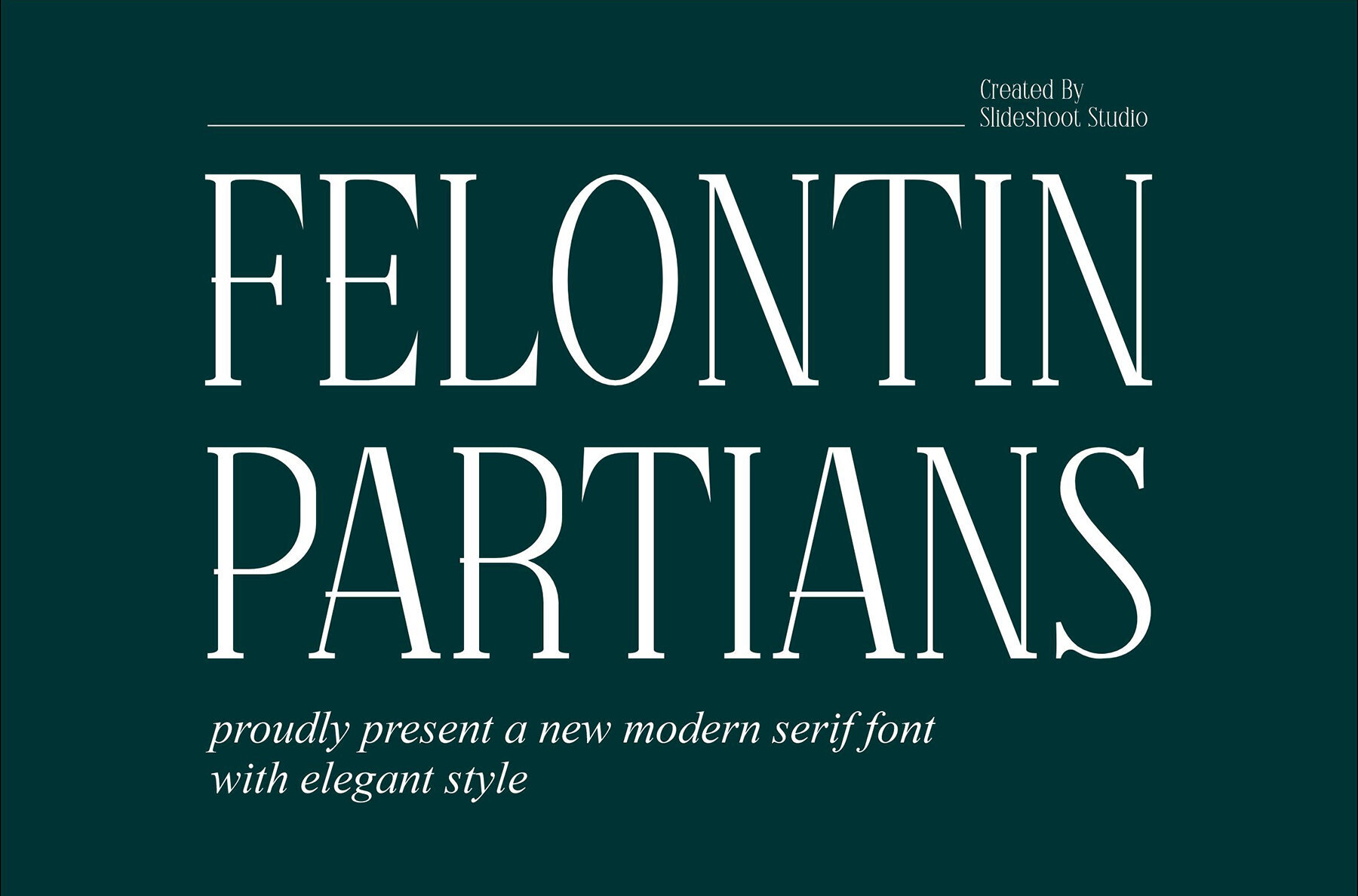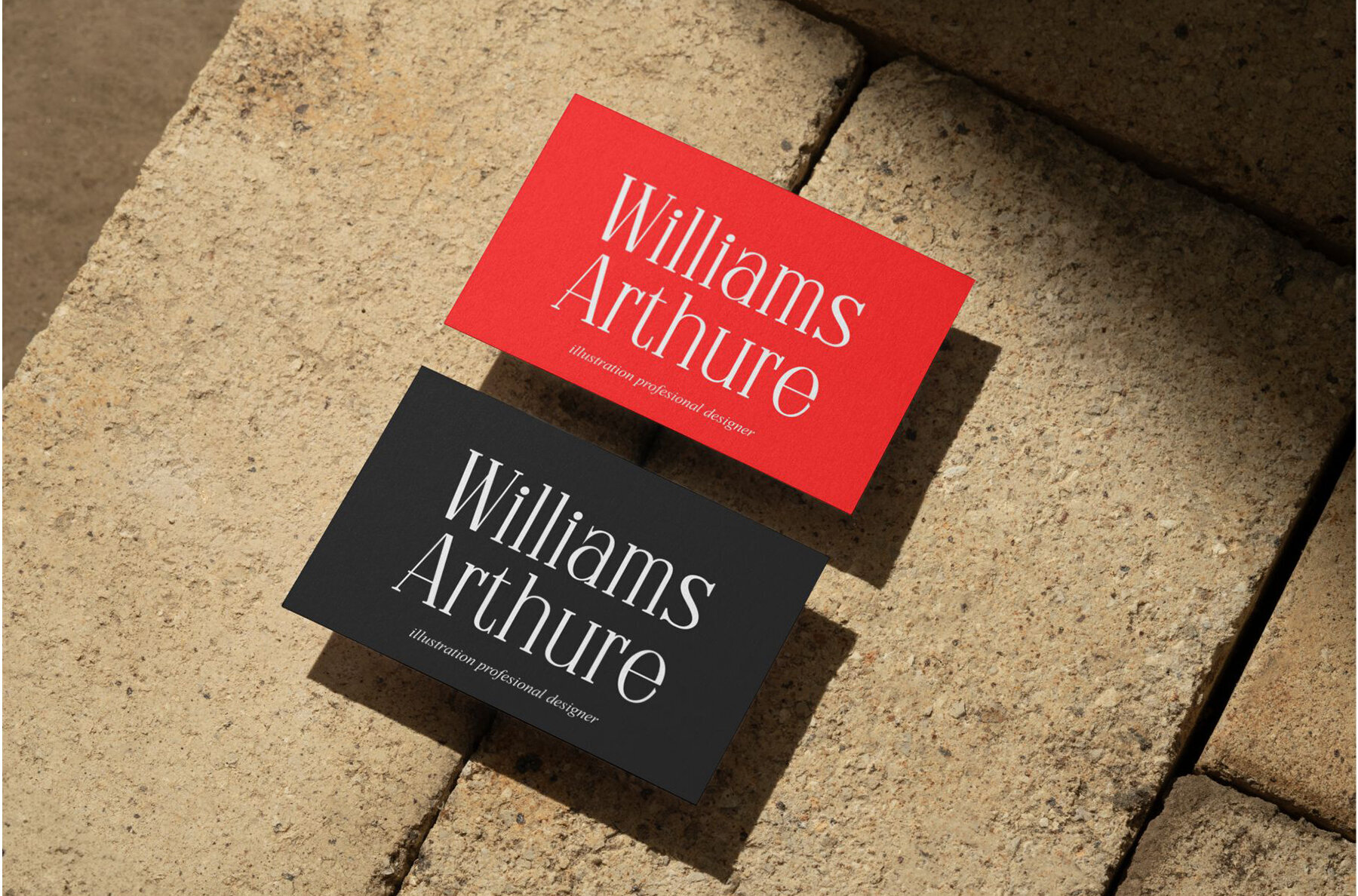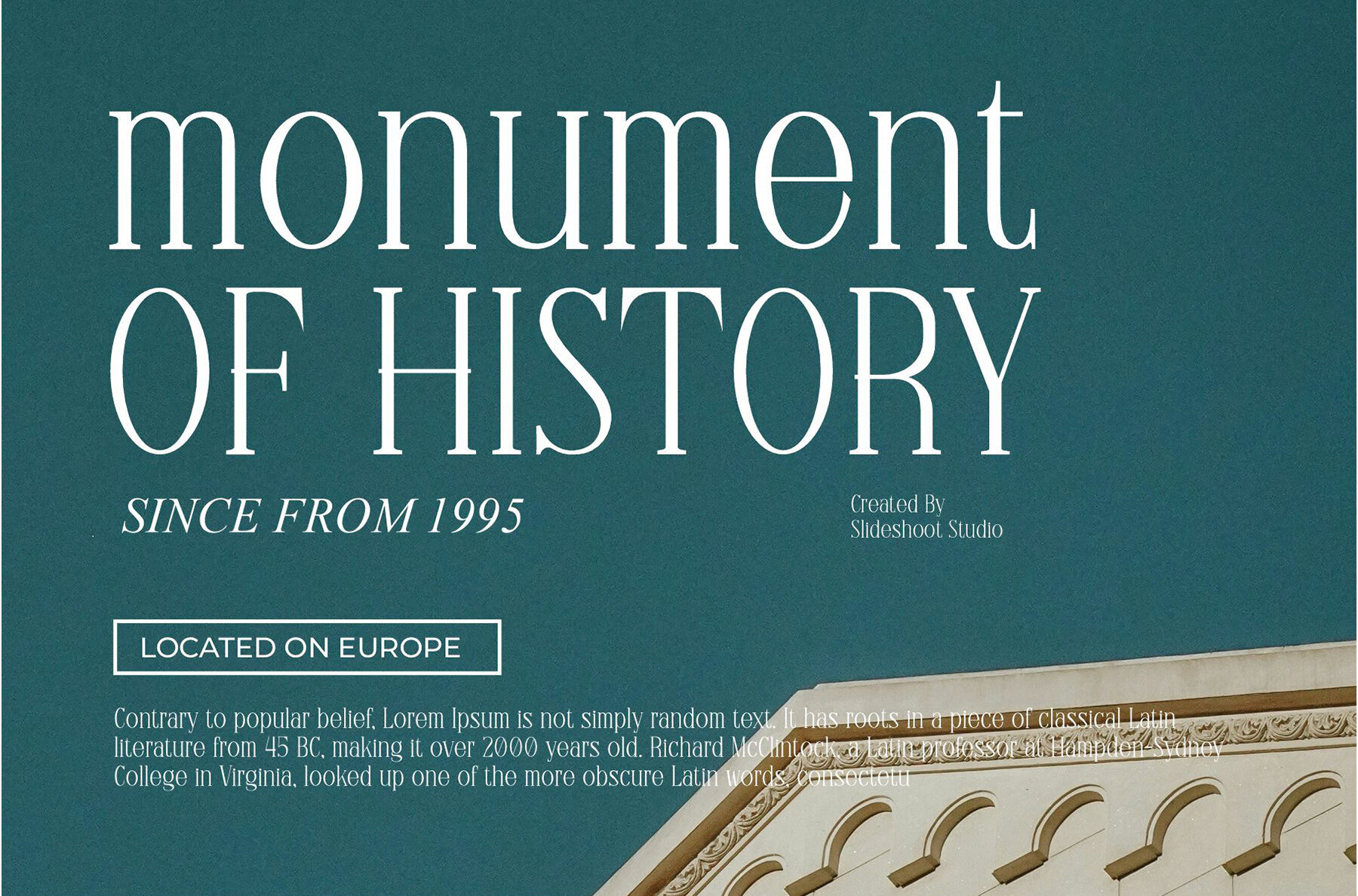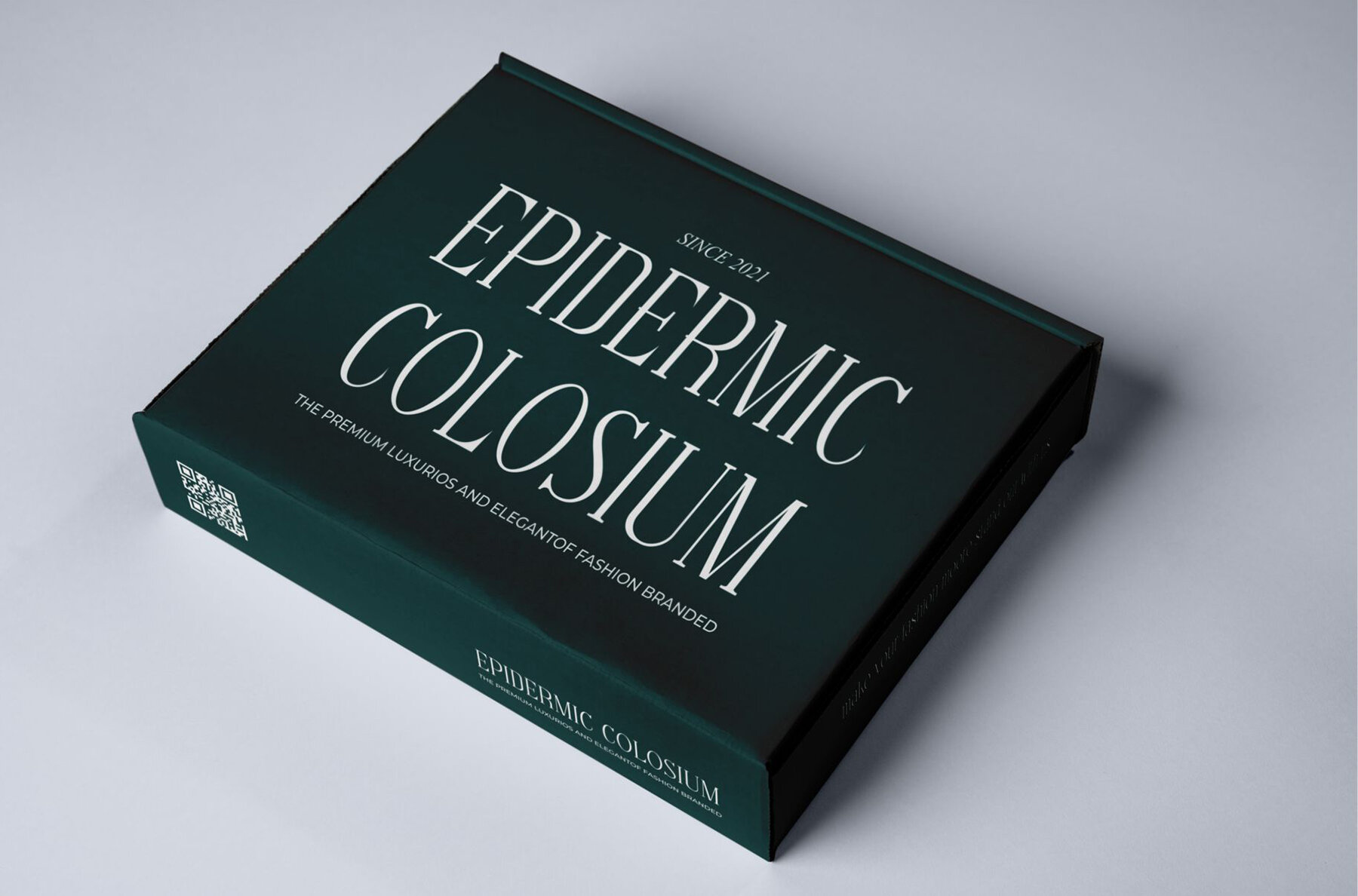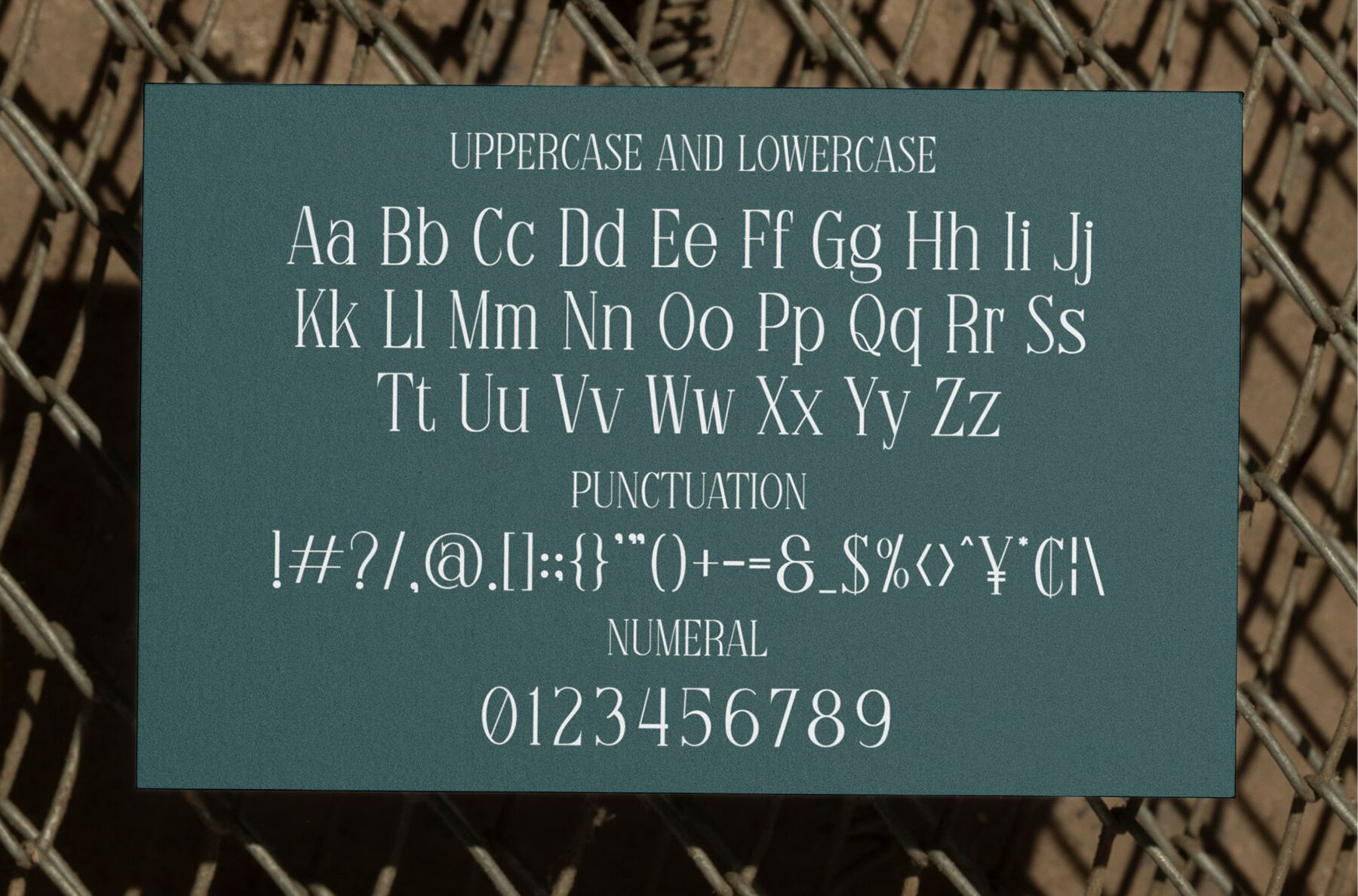
Felontin Partians Font
Felontin Partians
Felontin Partians is a serif font that beautifully marries classic style with a trendy, bouncy flair. This cute display font offers a unique character imbued with a wood theme, making it an exceptional choice for diverse design projects. Elevate your invitation card designs, company logos, movie titles, business cards, book titles, and brand names with its distinctive appeal.Felontin Partians: A Classic and Trendy Serif Font